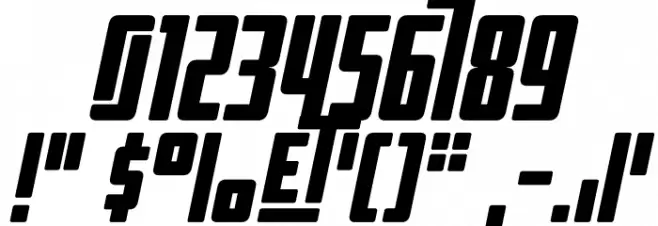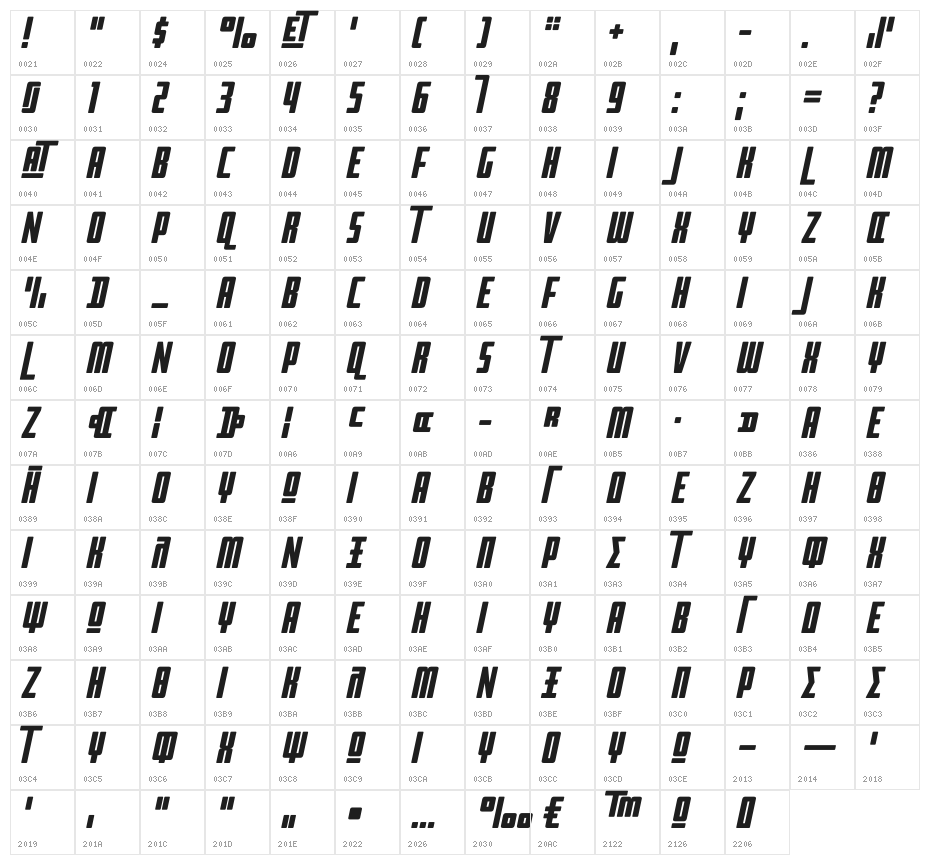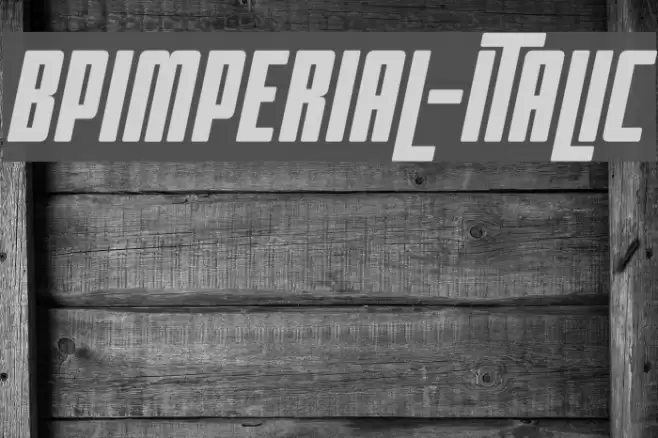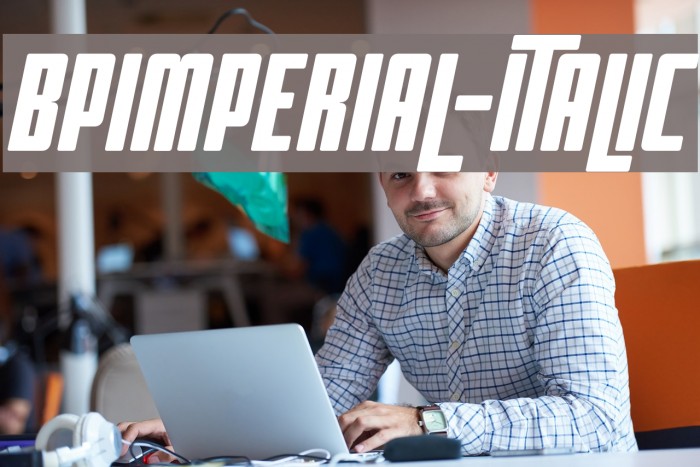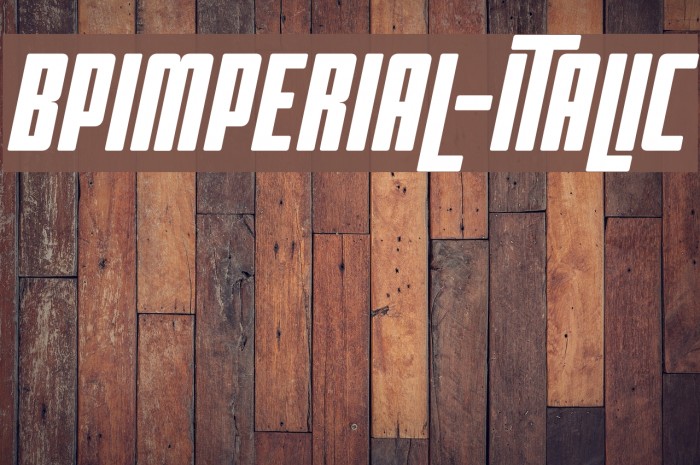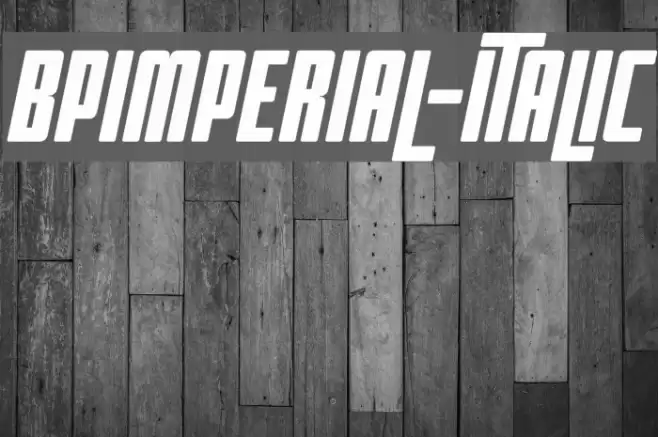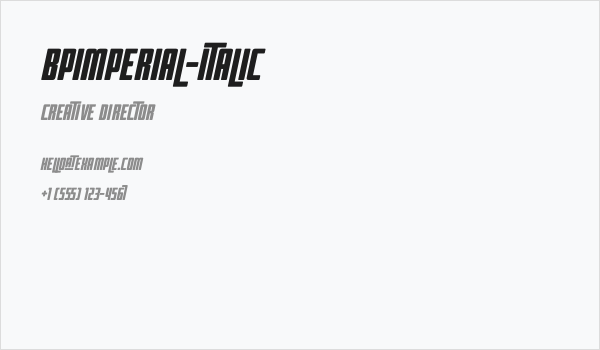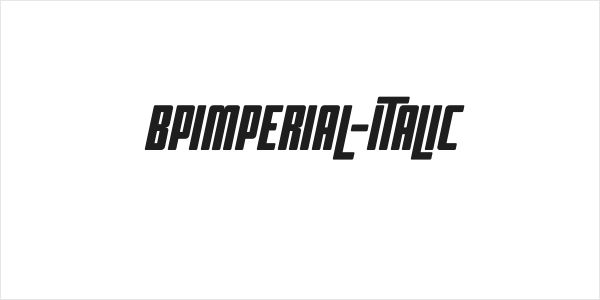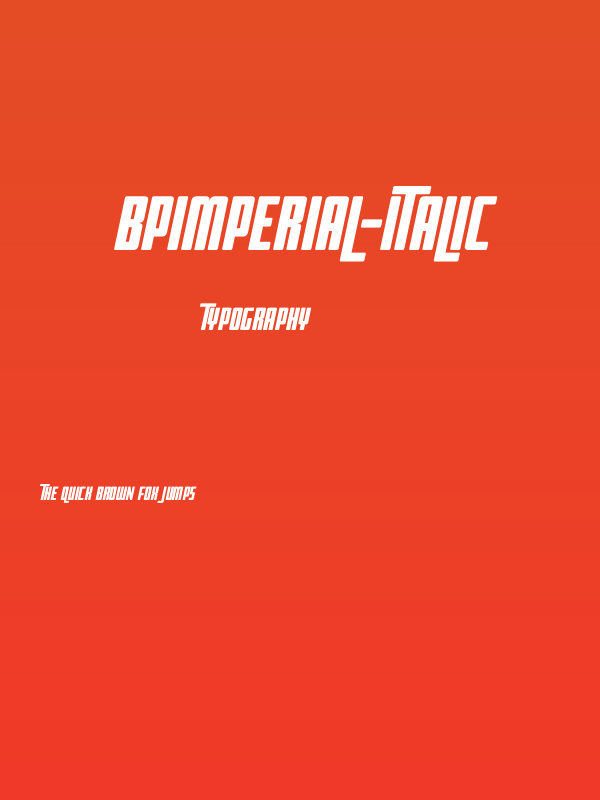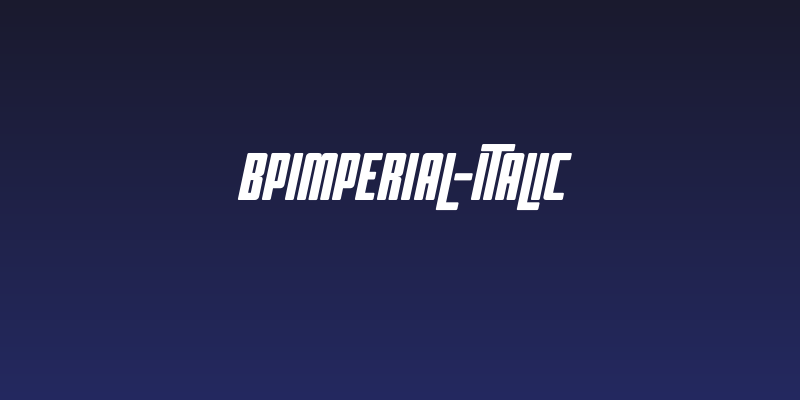
BPimperial-Italic Font
This font features a bold and dynamic style with a strong italic slant, giving it a sense of motion and energy. The characters are tall and narrow, with a condensed width that enhances its sleek appearance. The strokes are thick and consistent, providing a high contrast that makes the text stand out prominently. The angular design of the letters adds a modern and futuristic touch, making it suitable for projects that require a bold statement. The uppercase and lowercase letters maintain a uniform style, ensuring readability while adding a unique flair. The numbers and special characters are designed to match the overall aesthetic, making this font versatile for various uses.
| Proposed Projects | Ideal for sports branding, dynamic posters, futuristic designs, and impactful headlines. |